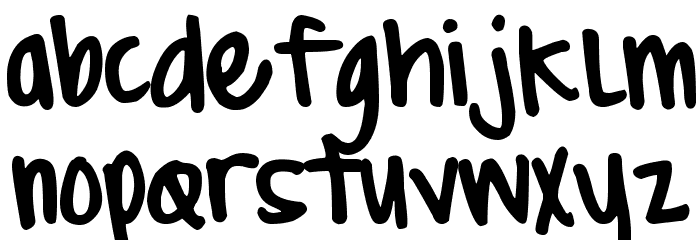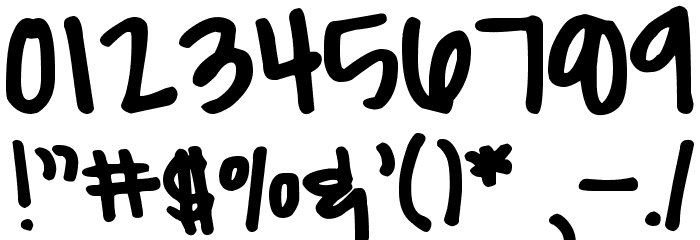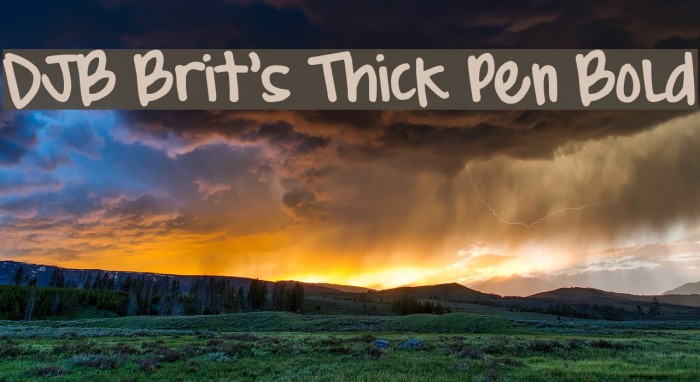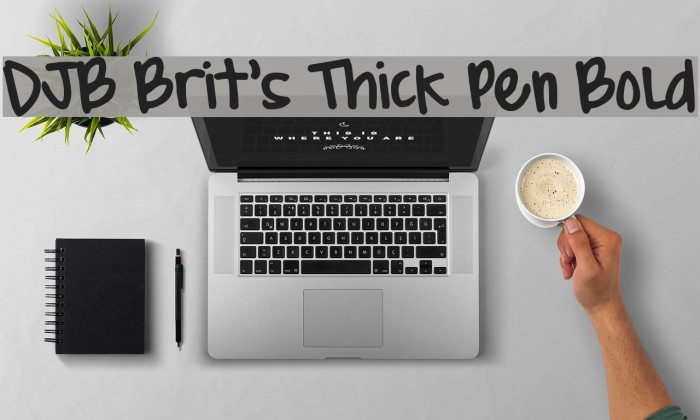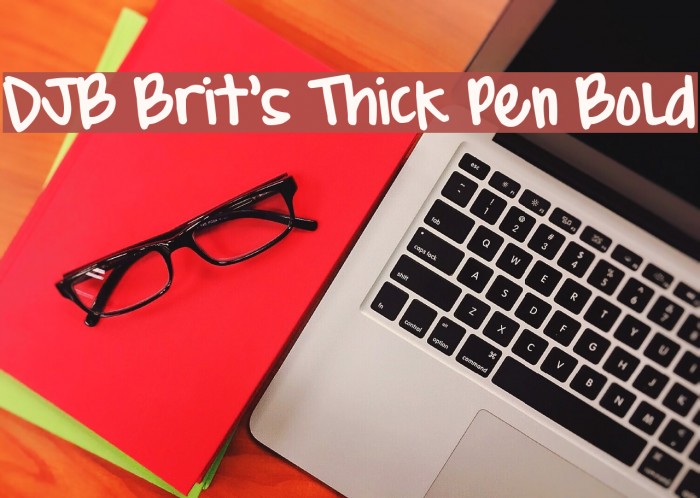
DJB Brit's Thick Pen Bold Font
This font exudes a playful and casual handwritten style, characterized by its bold and thick strokes. The letters are rounded and slightly irregular, giving it a friendly and approachable appearance. The uppercase and lowercase letters maintain a consistent style, with a slight slant that adds to its informal charm. The numbers and special characters follow the same design principles, ensuring uniformity across all glyphs. The overall look is reminiscent of a thick pen or marker, making it ideal for projects that require a personal touch. Its boldness ensures readability while maintaining a whimsical aesthetic.
A bold, playful handwritten font with thick, rounded strokes.
- Proposed Projects: Ideal for children's books, casual invitations, greeting cards, and playful branding.
- Overall Style: Casual, Playful
- Use Case: Headlines, Informal Text, Branding